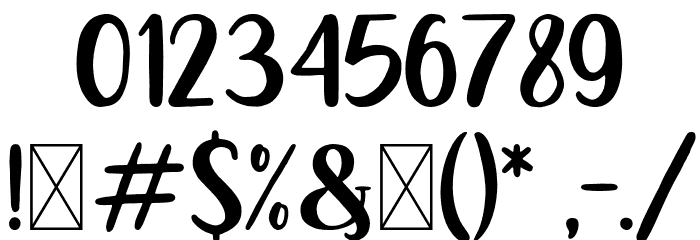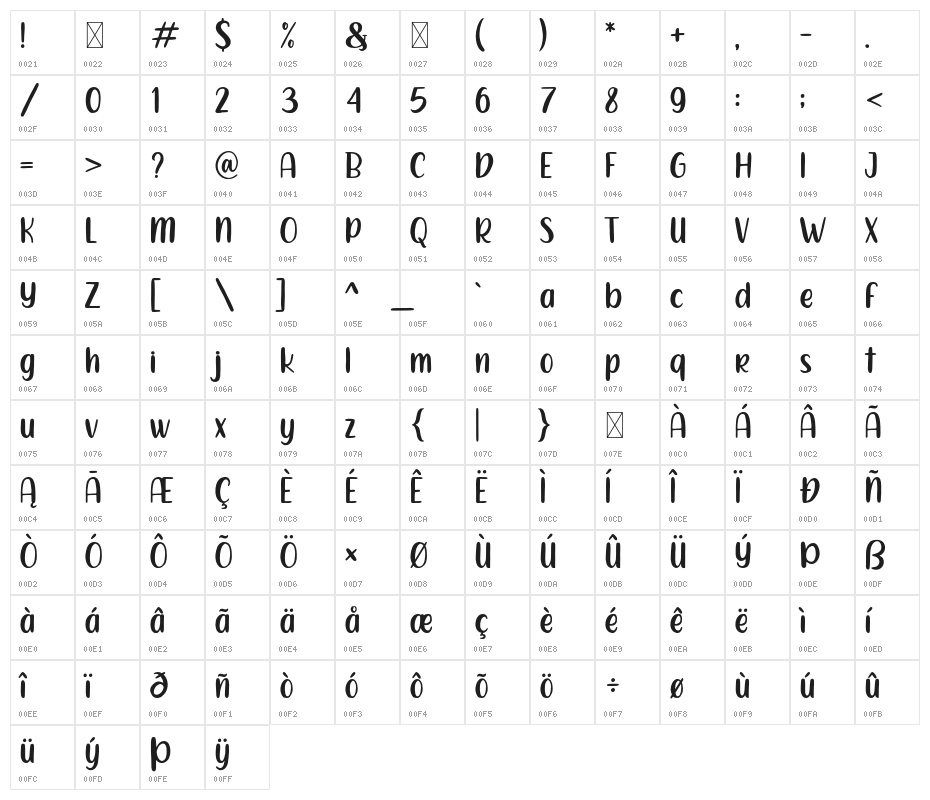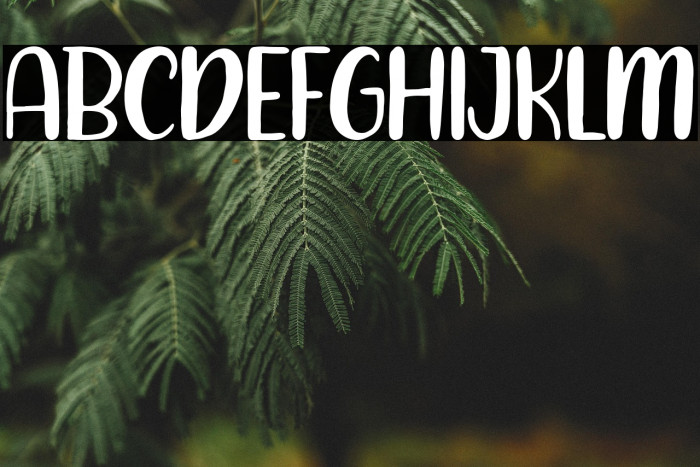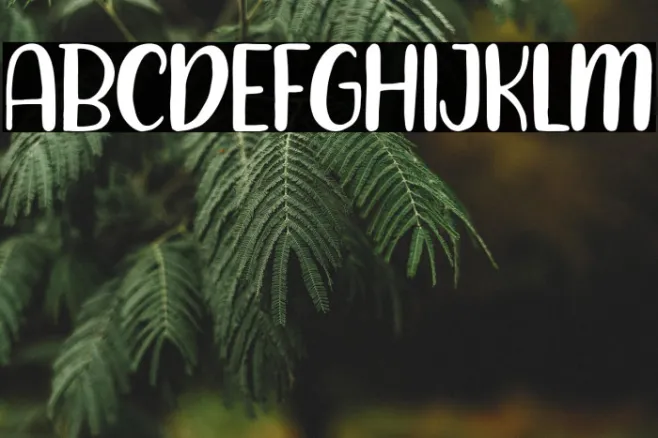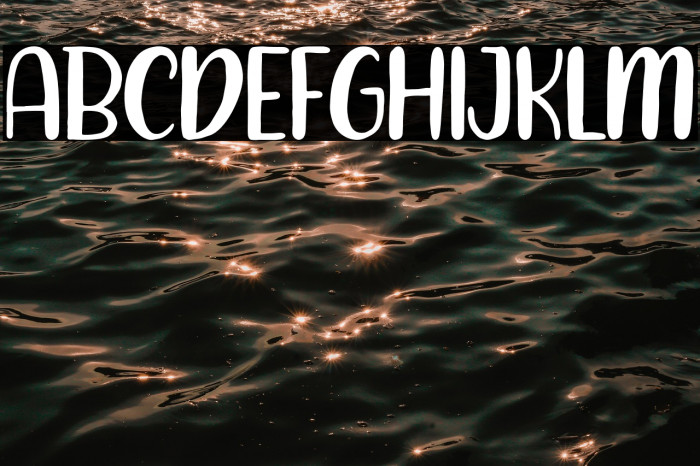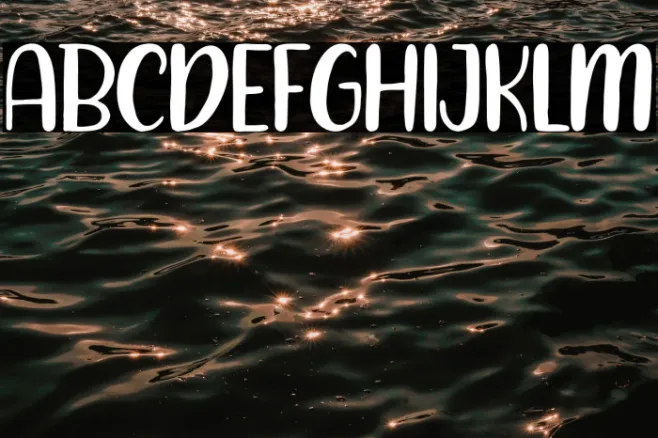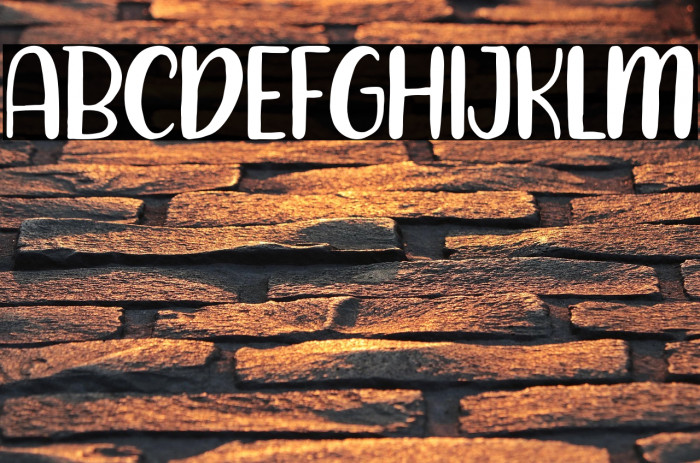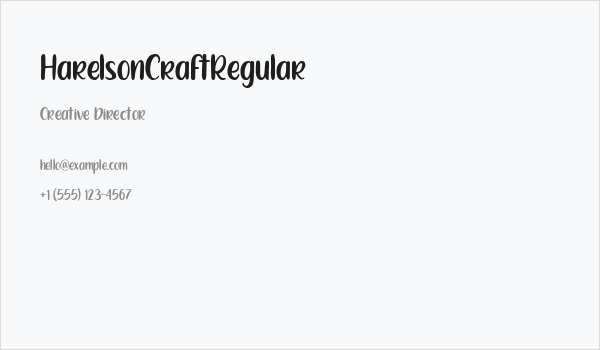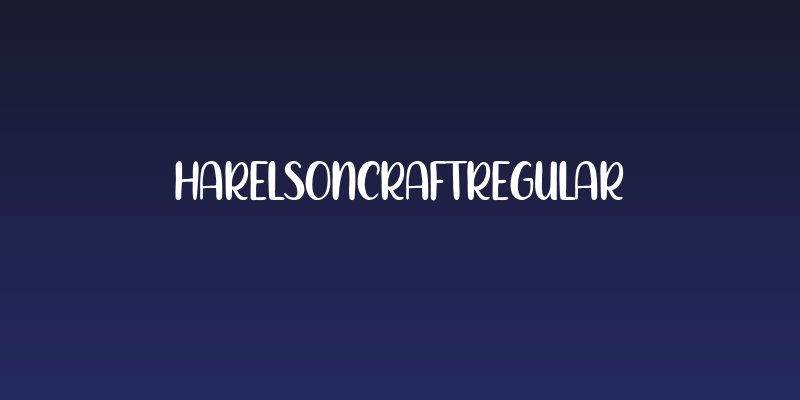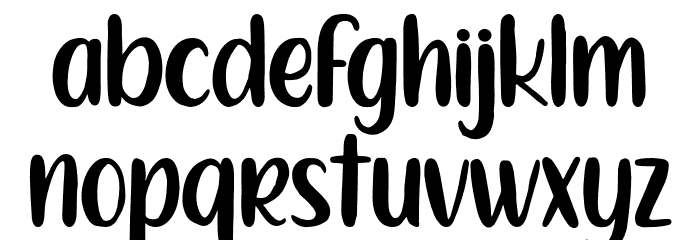
HarelsonCraftRegular Font
HarelsonCraftRegular Description
This font features a playful and bold handwritten style, characterized by its smooth curves and slightly irregular strokes that give it a casual and friendly appearance. The uppercase and lowercase letters maintain a consistent height, creating a harmonious flow. The numbers are equally bold and maintain the same playful aesthetic, making them easily readable. Special characters are designed with the same attention to detail, ensuring they blend seamlessly with the rest of the font. This font's overall style is inviting and versatile, suitable for a variety of creative projects.
| Overall Style | Playful, Casual |
| Proposed Projects | Ideal for greeting cards, invitations, playful branding, children's books, and social media graphics. |